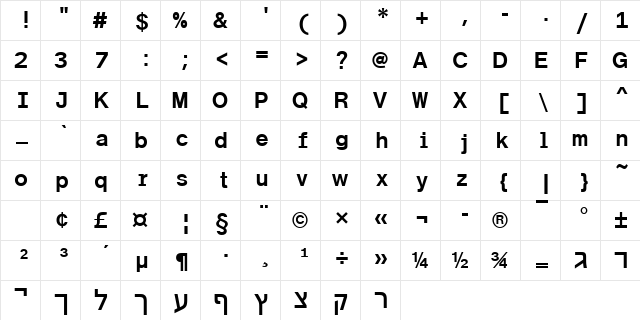
SidaHebMBol Regular
SidaHebMBol takes a measured approach to typography — its balanced proportions and neutral character make it a reliable workhorse for both digital and print work.